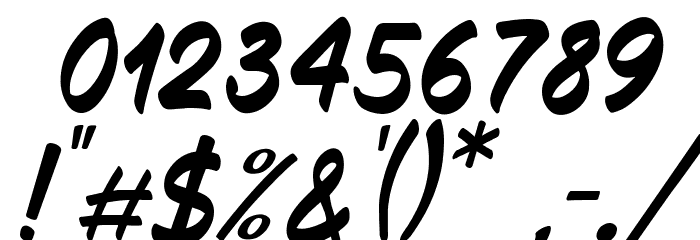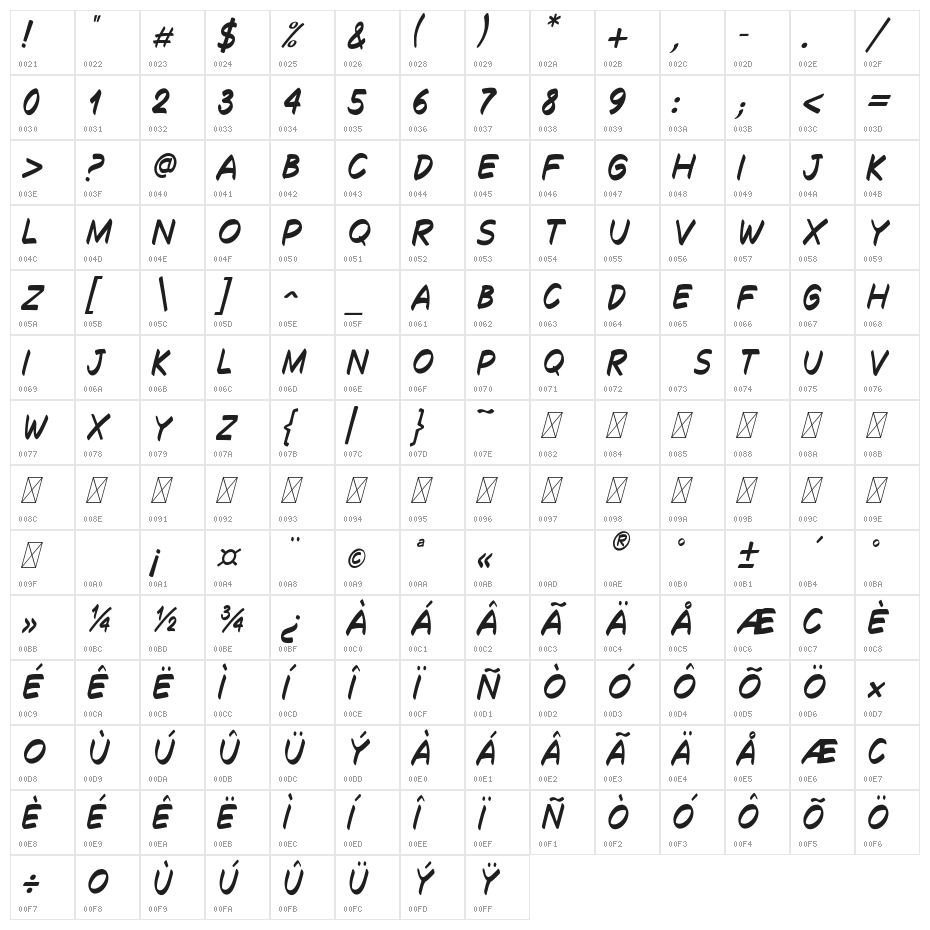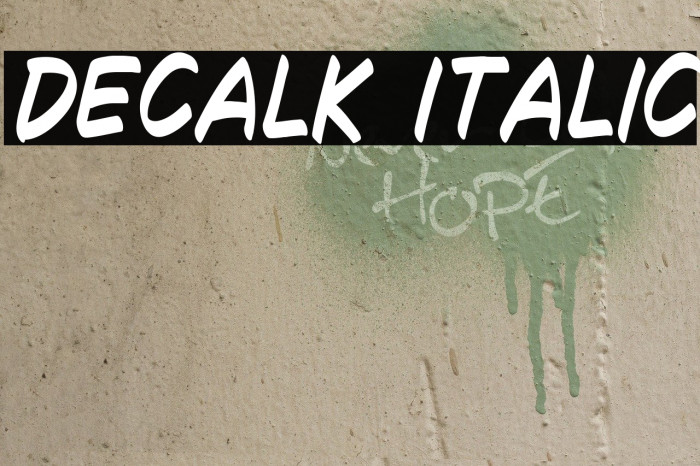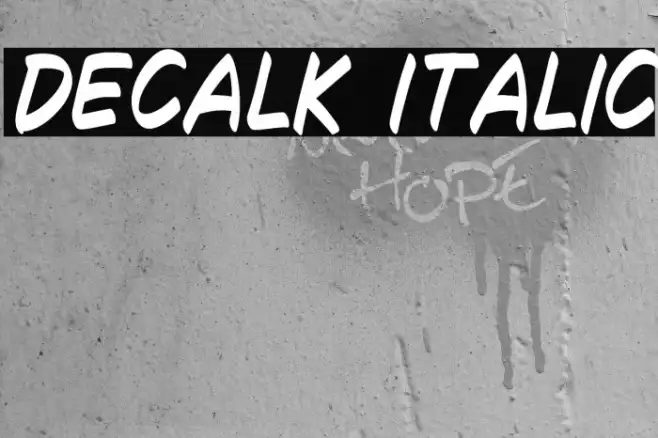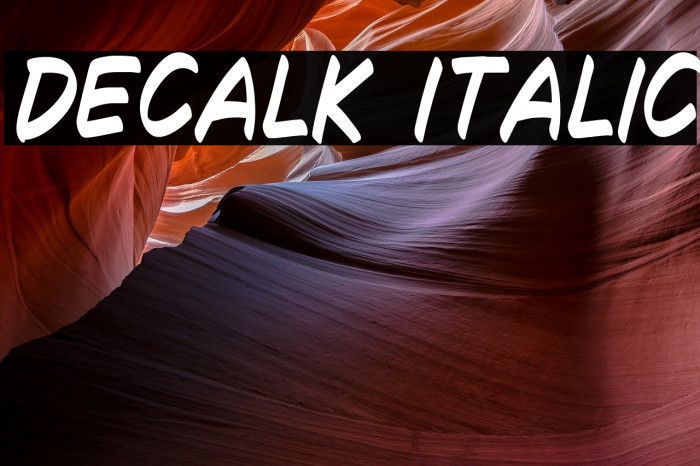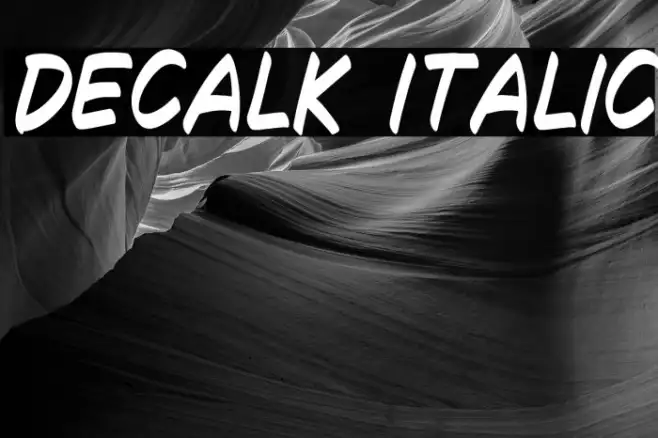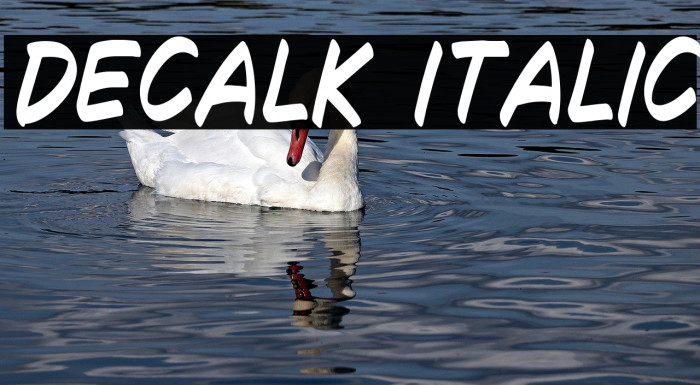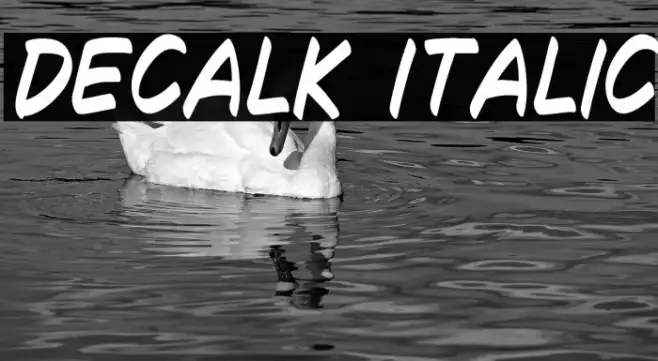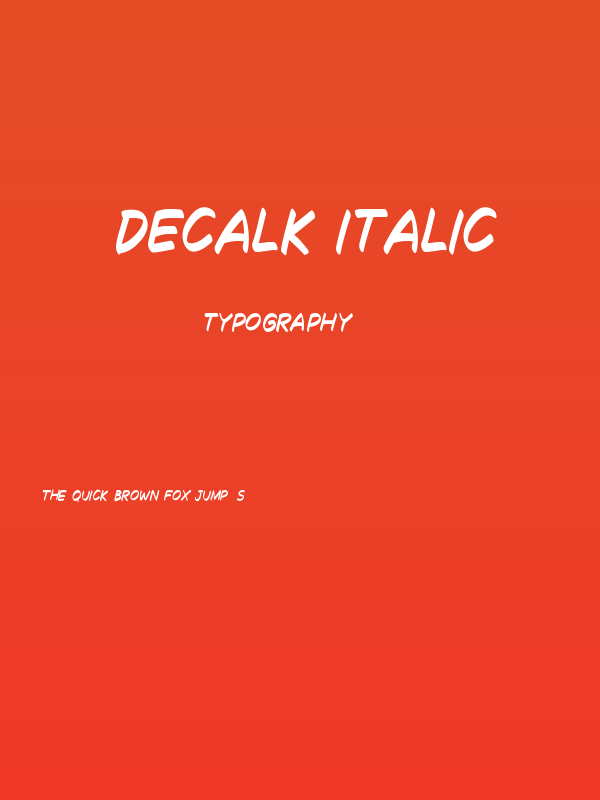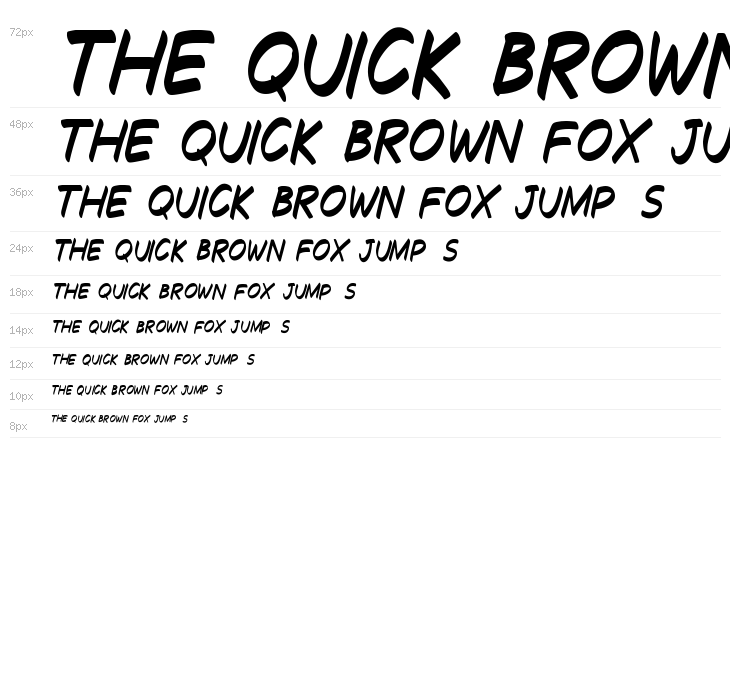
Decalk Italic Font
Decalk Italic Description
This font features a dynamic and energetic style with a handwritten appearance. The letters are slightly slanted, giving it an italicized look that adds a sense of motion and fluidity. The strokes are bold and consistent, with rounded edges that soften the overall appearance. The characters are well-spaced, allowing for clear readability while maintaining a casual and approachable feel. This font includes both uppercase and lowercase letters, numerals, and a variety of punctuation marks, making it versatile for different design needs.
| Overall Style | Casual, Dynamic |
| Proposed Projects | Ideal for projects that require a personal touch, such as greeting cards, invitations, or branding for creative businesses. It can also be used effectively in social media graphics and posters. |